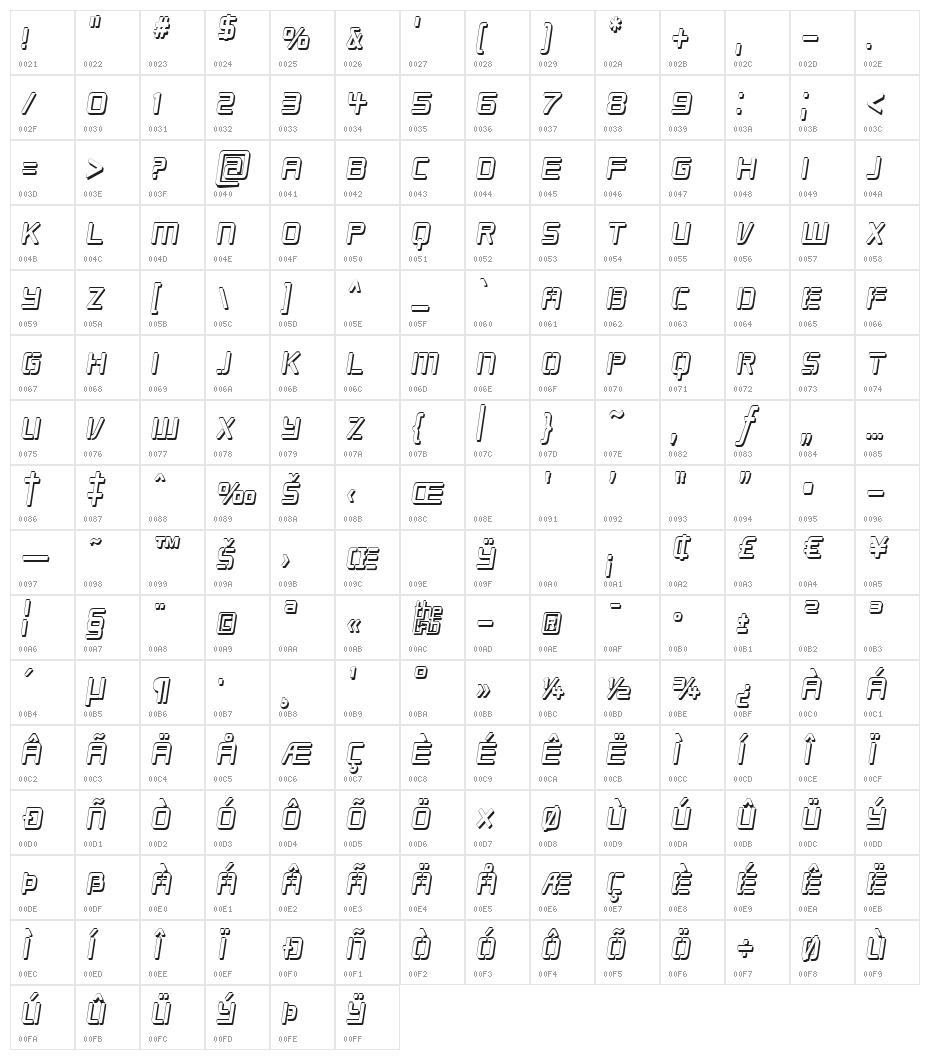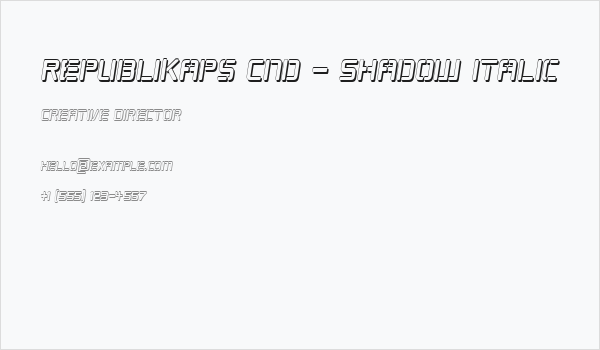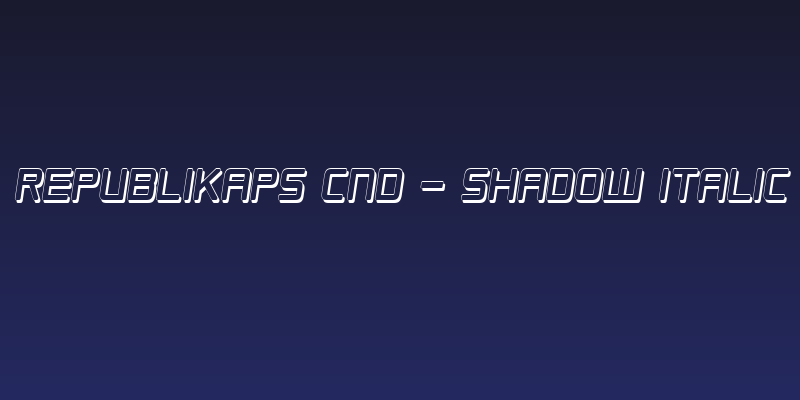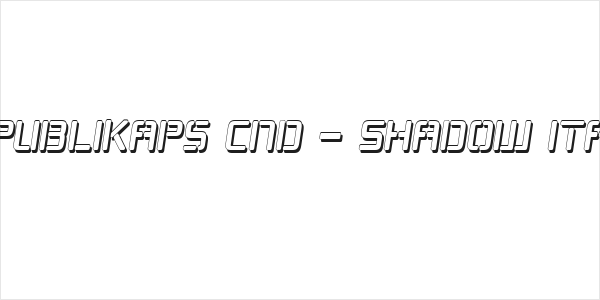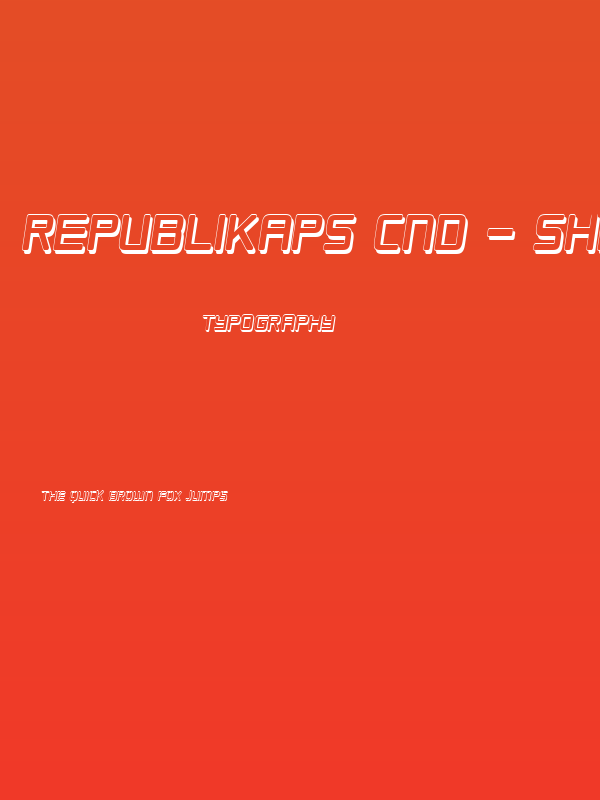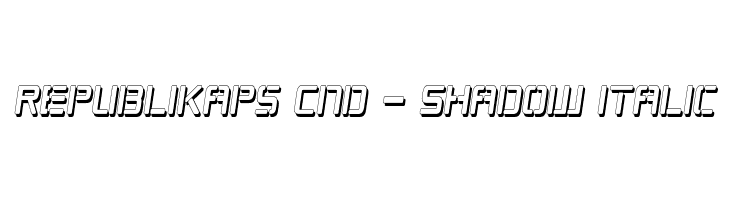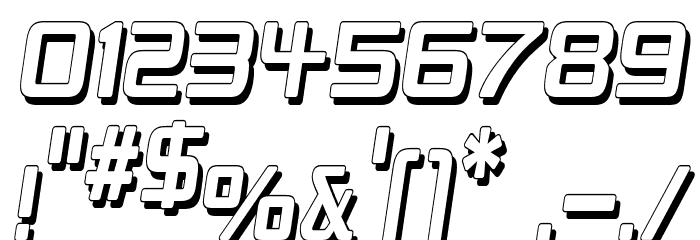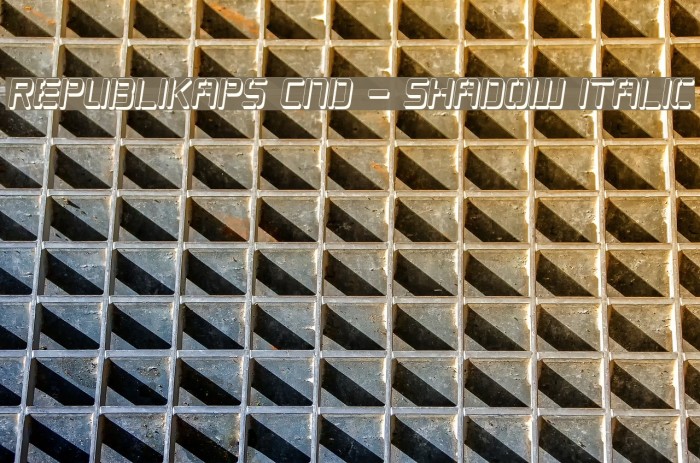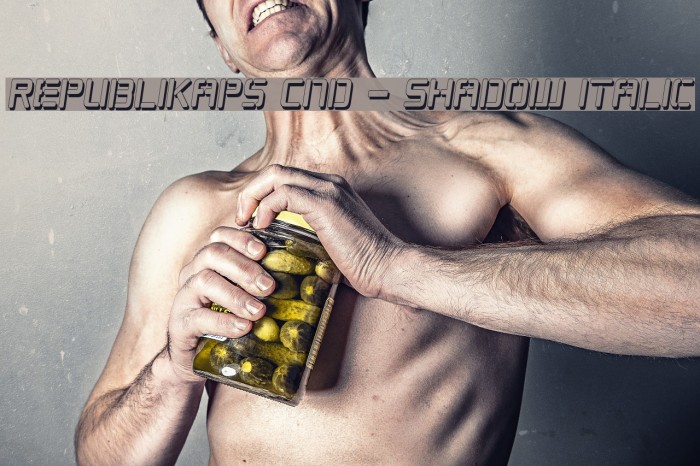
Republikaps Cnd - Shadow Italic Font
Republikaps Cnd - Shadow Italic Description
This font features a bold, condensed style with a distinct shadow effect that gives it a three-dimensional appearance. The italic slant adds a dynamic and forward-moving feel, making it ideal for attention-grabbing headlines. The characters are uniformly spaced, ensuring readability while maintaining a compact form. The uppercase and lowercase letters are consistent in style, with a modern, geometric design that is both sleek and stylish. The numerals and special characters follow the same aesthetic, providing a cohesive look across all text elements.